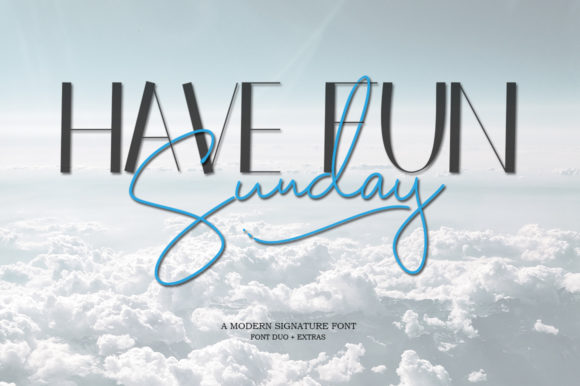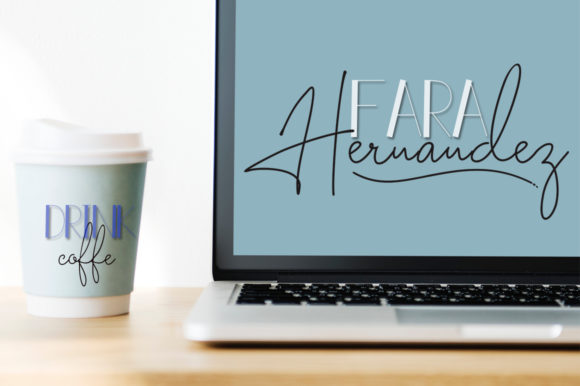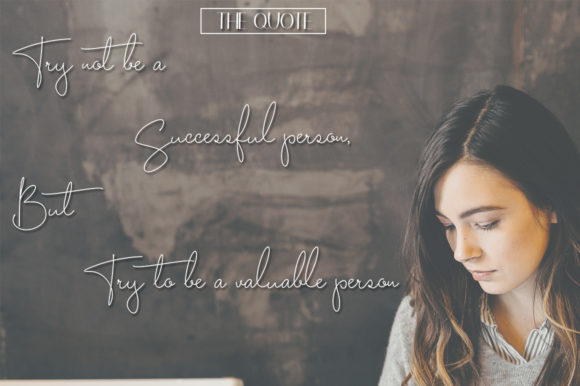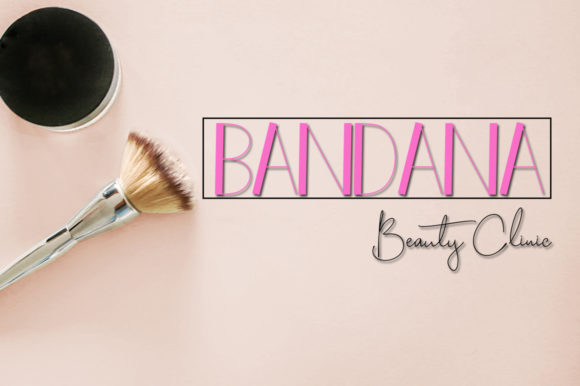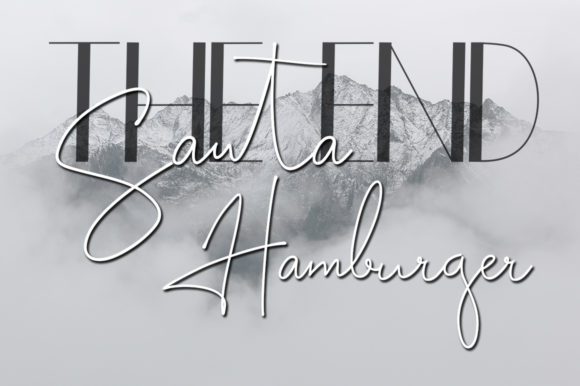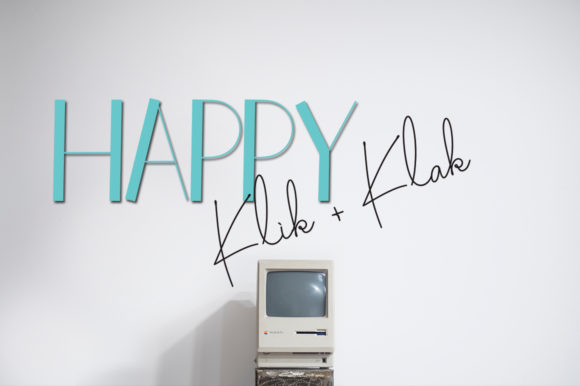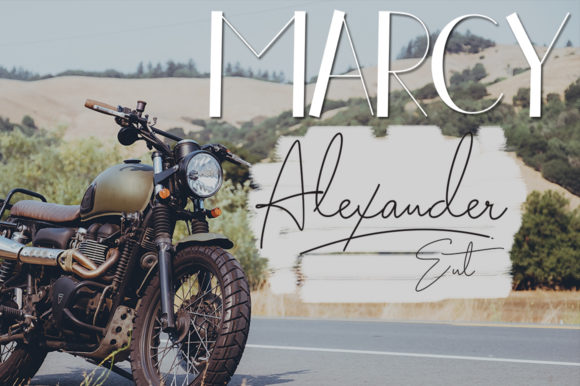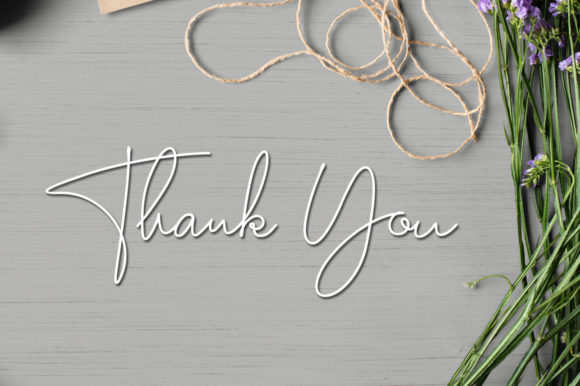
Have Fun Sunday Duo Font
About Have Fun Sunday Duo Font
The ‘Have Fun Sunday’ is a romantic brush font duo with contemporary, sophisticated accents. It includes a regular, sans and swash weight, which can be combined perfectly!